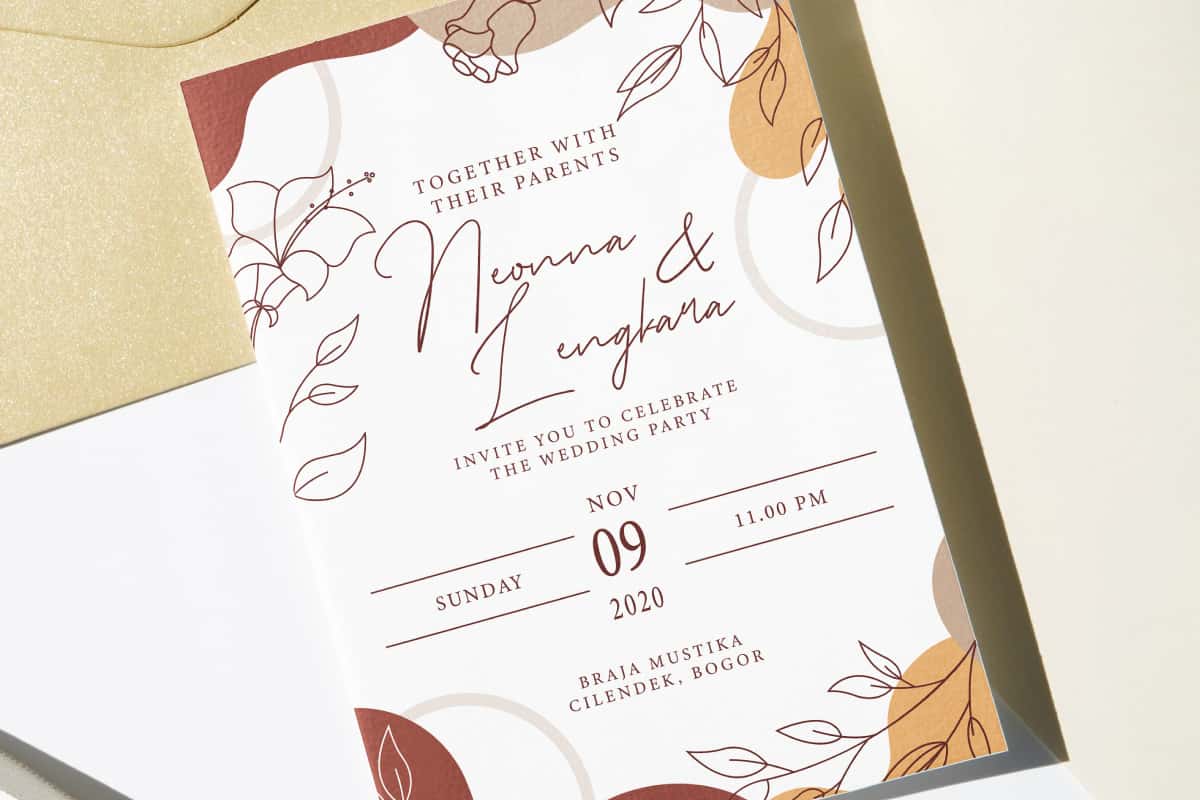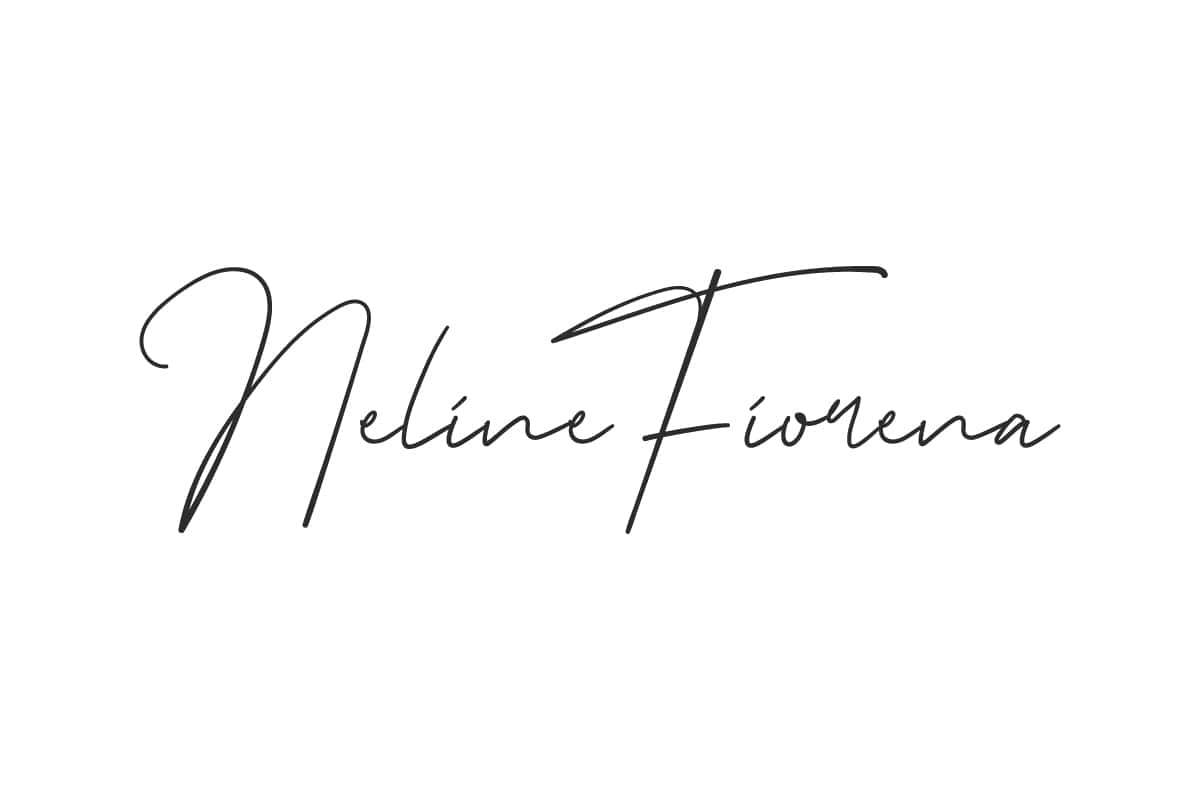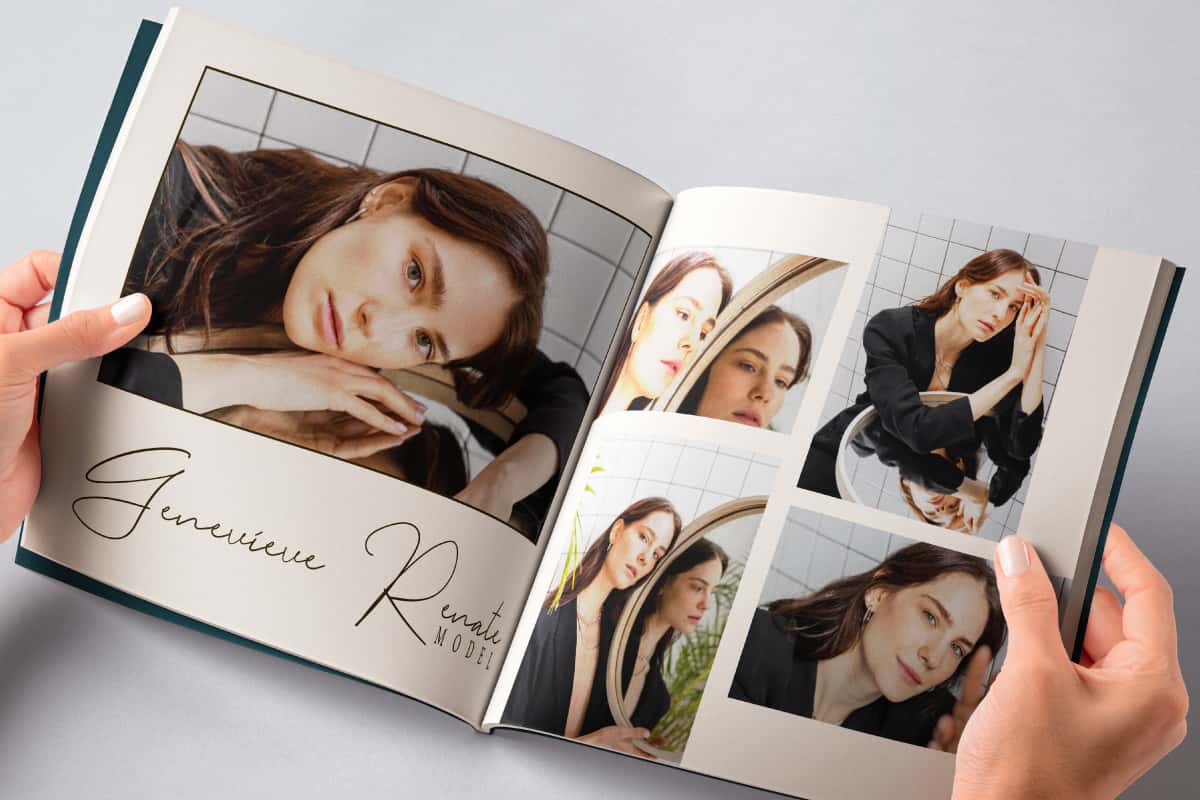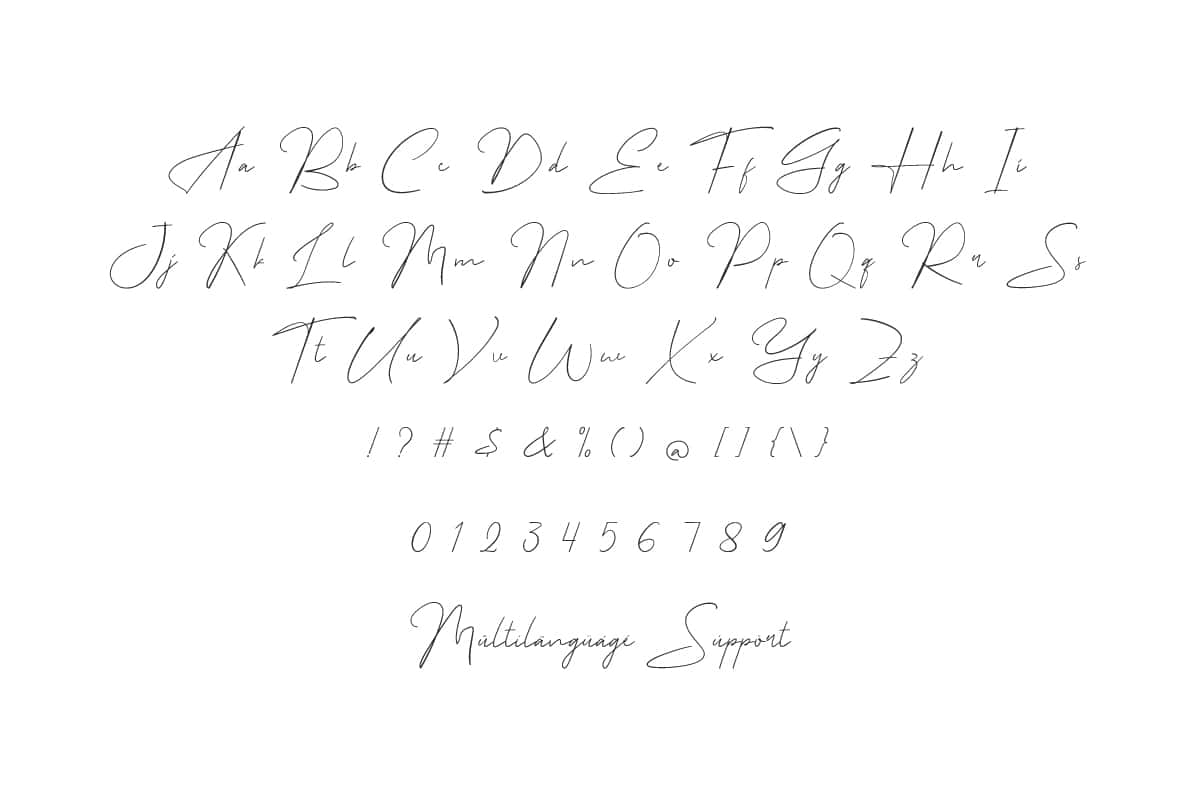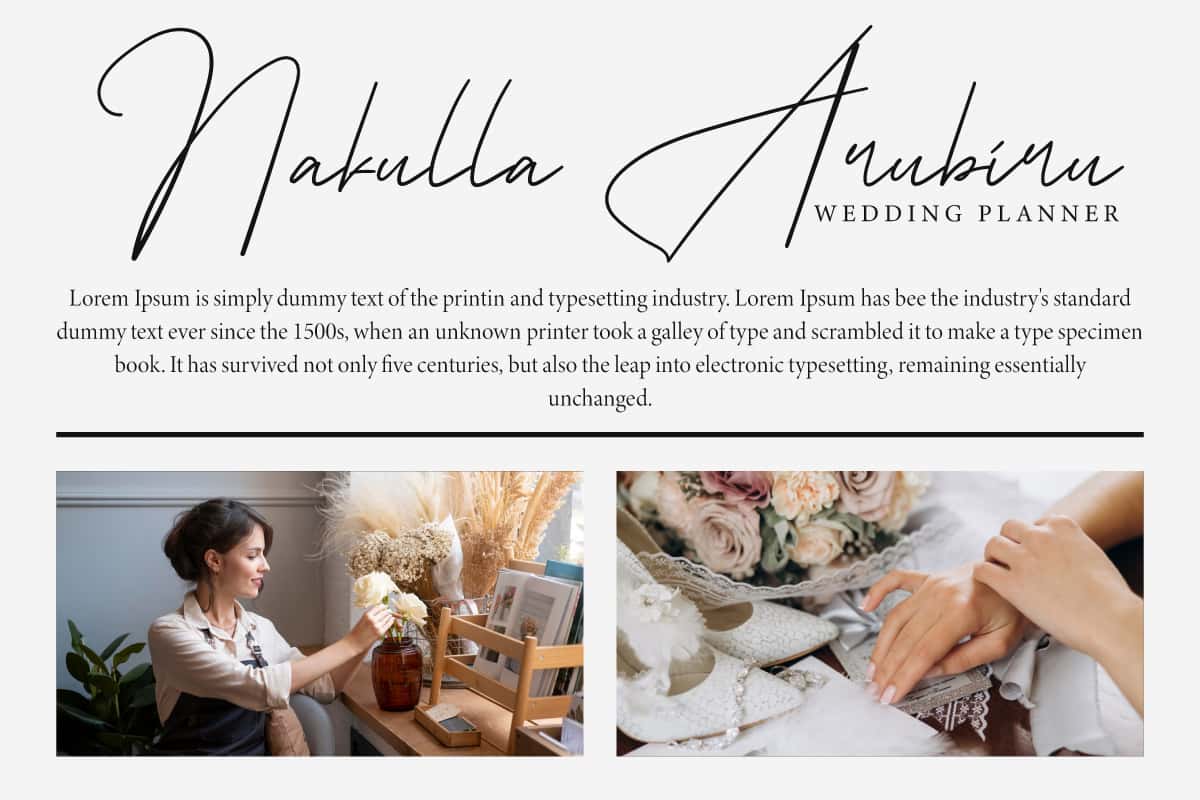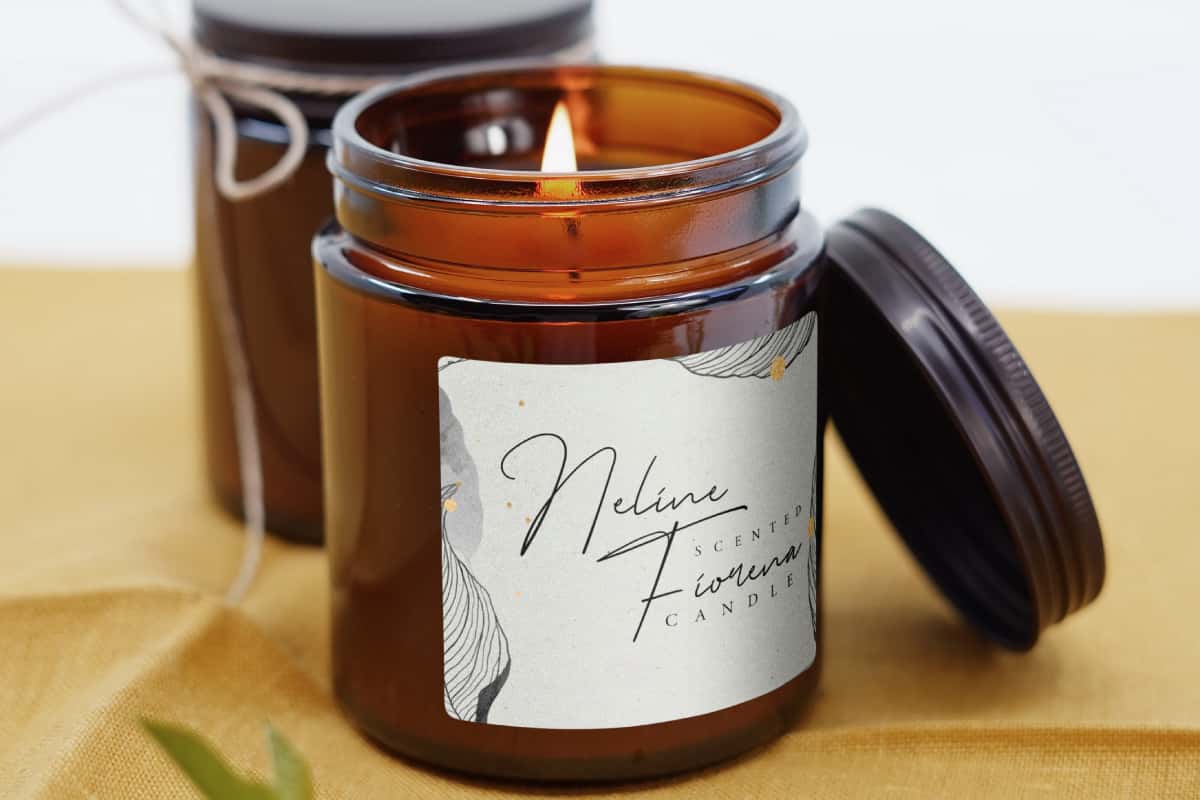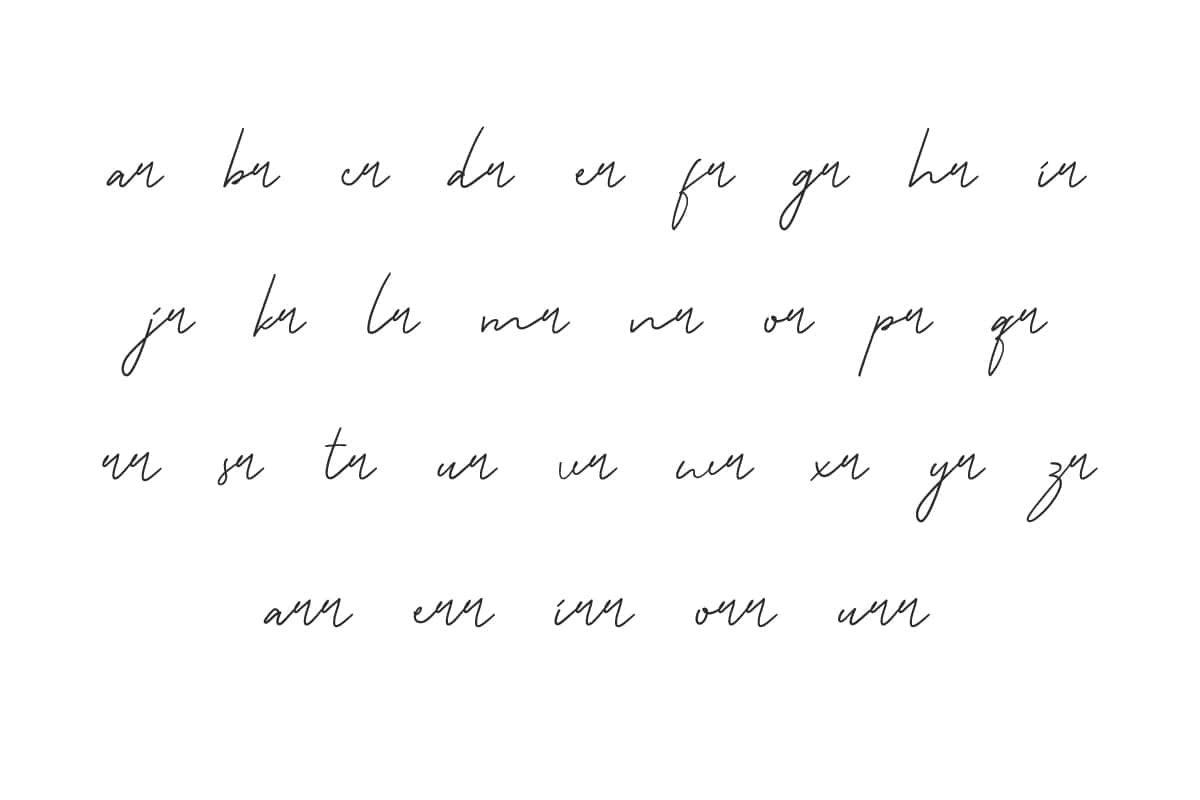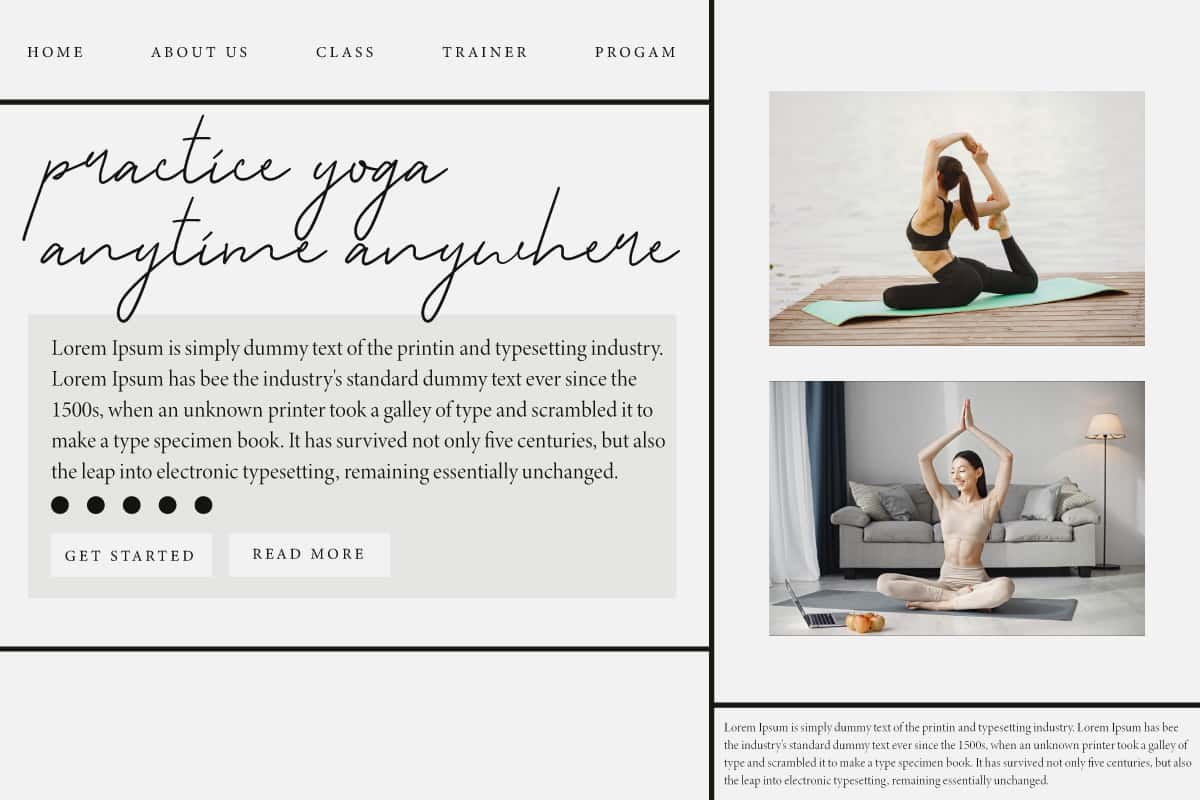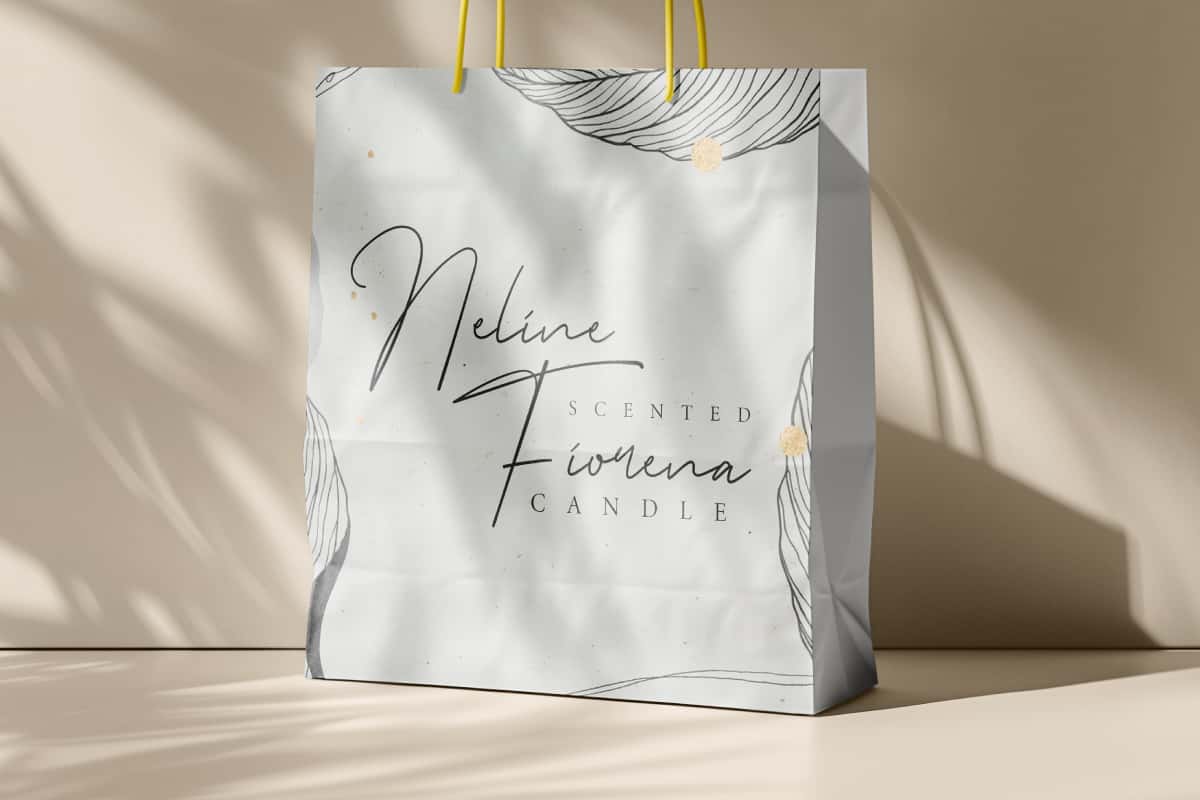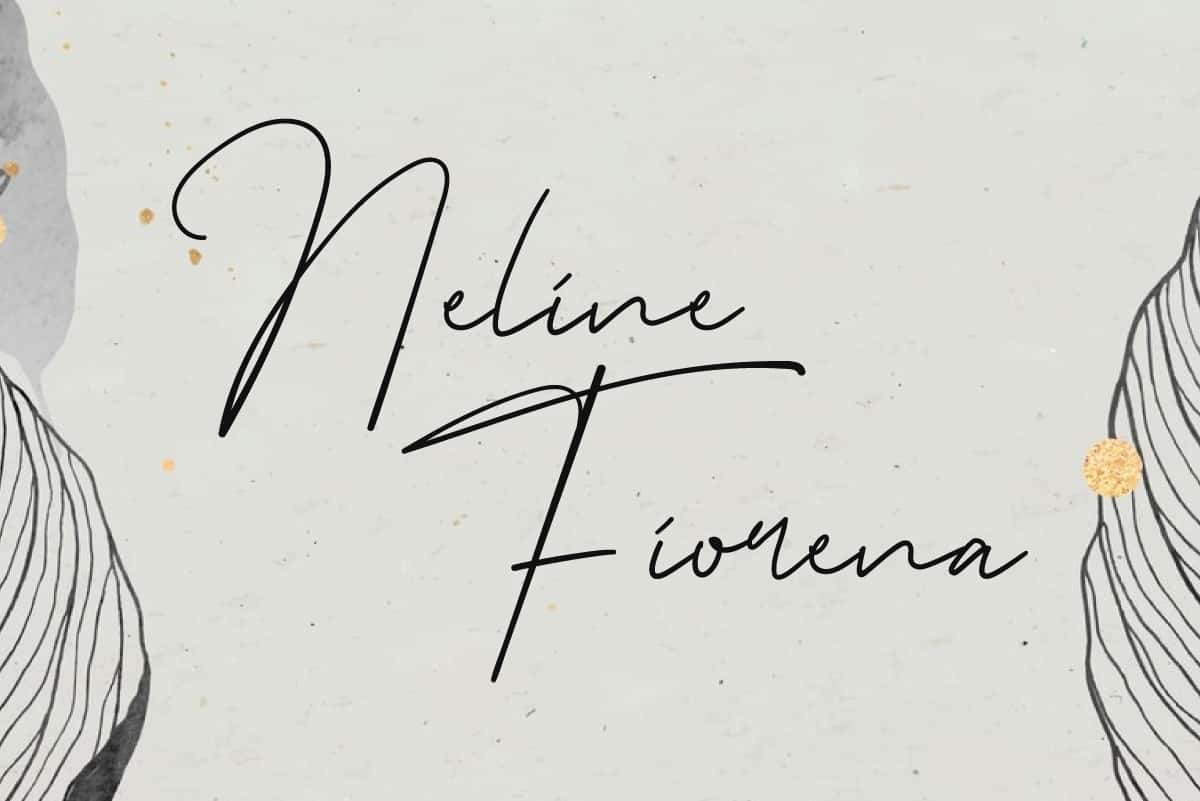
Neline Fiorena Font
Neline Fiorena Font Is a beautiful signature font, featuring a delicate handwritten style that was carefully designed to achieve a realistic look.
Neline Fiorena Font is a beautiful handwriting font featuring modern characters, drawing inspiration from classic hand lettering and refined branding designs. Its perfect for banners, blogs, brochure, covers, flyer, headers, invitation, logos, mockup, product label, shopping bag, title, website, and more.
Neline Fiorena Font includes a complete set of Basic Uppercase and Lowercase Characters, Numbers, Punctuation, Symbols and Ligatures. It features a personal touch and graceful design, a pure approach just like the original handmade! Perfect for advertising, cosmetic, fashion, graphic design, hair salons, real estate, restaurant, skincare, wedding planner, and much more.